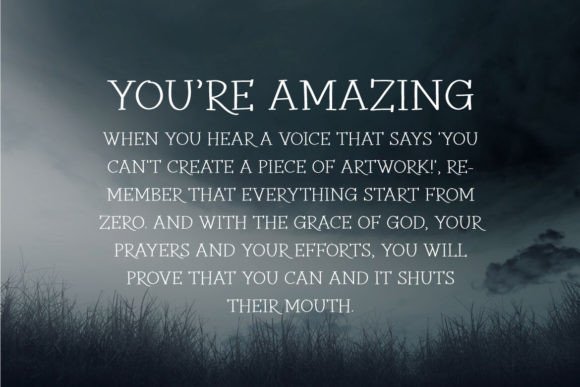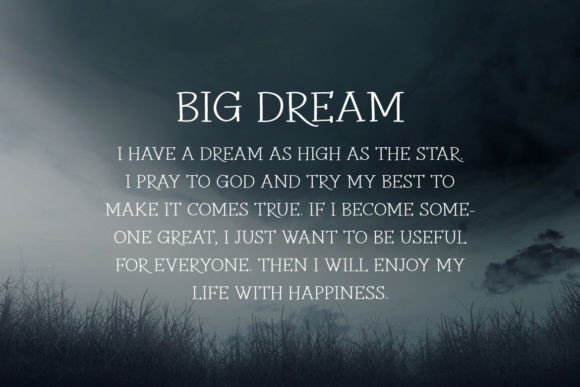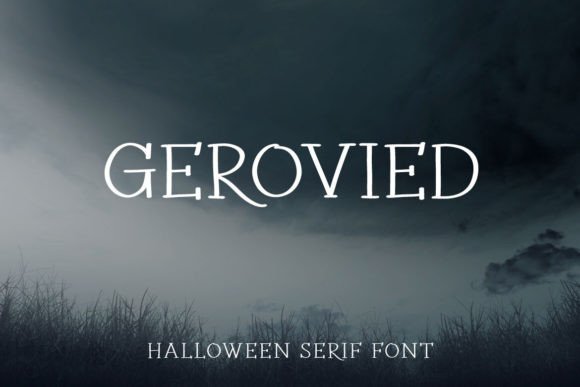
Introducing Gerovied Font: The Spooky Display Font for Halloween
Are you looking for a font that captures the essence of Halloween? Do you want to add a spooky touch to your designs, crafts, or marketing materials? Look no further than Gerovied Font, a Halloween display font that is perfect for a wide range of creative projects.
What is Gerovied Font?
Gerovied Font is a specially designed font for Halloween-themed projects. Its unique and eerie style makes it an ideal choice for creating eye-catching and spooky designs. The font is versatile and can be used in various contexts, including comic books, posters, school projects, flyers, book titles, advertisements, social media content, logos, and more.
Key Features of Gerovied Font
• Halloween-themed design: Gerovied Font features a distinct Halloween-inspired design, complete with spooky and eerie elements that will add a touch of horror to your projects.
• Display font: Gerovied Font is a display font, making it perfect for headlines, titles, and other prominent text elements in your designs.
• Versatile: The font can be used in a wide range of creative projects, from comic books and posters to social media content and logos.
Use Cases for Gerovied Font
Gerovied Font is a versatile font that can be used in various creative projects. Here are some use cases to get you started:
• Comic books and graphic novels: Add a spooky touch to your comic book or graphic novel with Gerovied Font.
• Posters and flyers: Create eye-catching posters and flyers for Halloween events or promotions using Gerovied Font.
• School projects: Use Gerovied Font to add a creative touch to school projects, such as book reports or presentations.
• Book titles and covers: Use Gerovied Font to create spooky and attention-grabbing book titles and covers.
• Advertisements and marketing materials: Add a touch of horror to your advertisements and marketing materials with Gerovied Font.
• Social media content: Use Gerovied Font to create spooky and engaging social media content, such as Halloween-themed posts and graphics.
• Logos and branding: Use Gerovied Font to create a unique and memorable logo or branding element for your business or project.
Tips for Using Gerovied Font
Here are some tips for using Gerovied Font effectively in your designs:
• Use it sparingly: Gerovied Font is a bold and attention-grabbing font, so use it sparingly to avoid overwhelming your design.
• Pair it with other fonts: Pair Gerovied Font with other fonts to create a unique and visually appealing design.
• Experiment with colors: Experiment with different colors to find the perfect combination that complements your design.
• Keep it legible: Make sure to adjust the font size and style to ensure that your text is legible and easy to read.
Gerovied Font is a unique and versatile Halloween display font that is perfect for a wide range of creative projects. Its spooky and eerie design makes it an ideal choice for adding a touch of horror to your designs, crafts, or marketing materials. With its ease of use and versatility, Gerovied Font is a must-have for designers and crafters looking to create eye-catching and spooky designs.